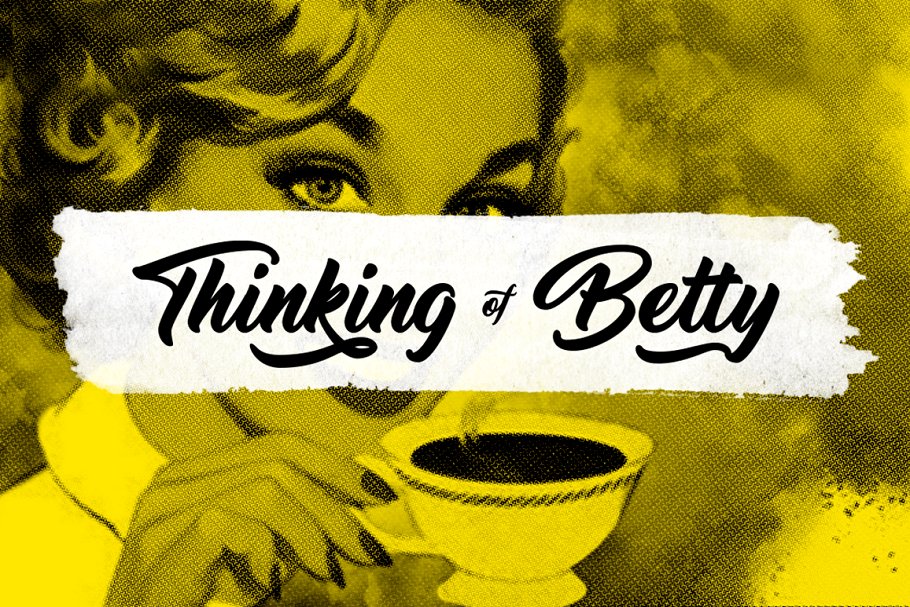
Thinking of Betty font is a bold script font, designed by StereoType. The full commercial version comes with an additional complete light version and a set of alternate glyphes and contextual ligatures.